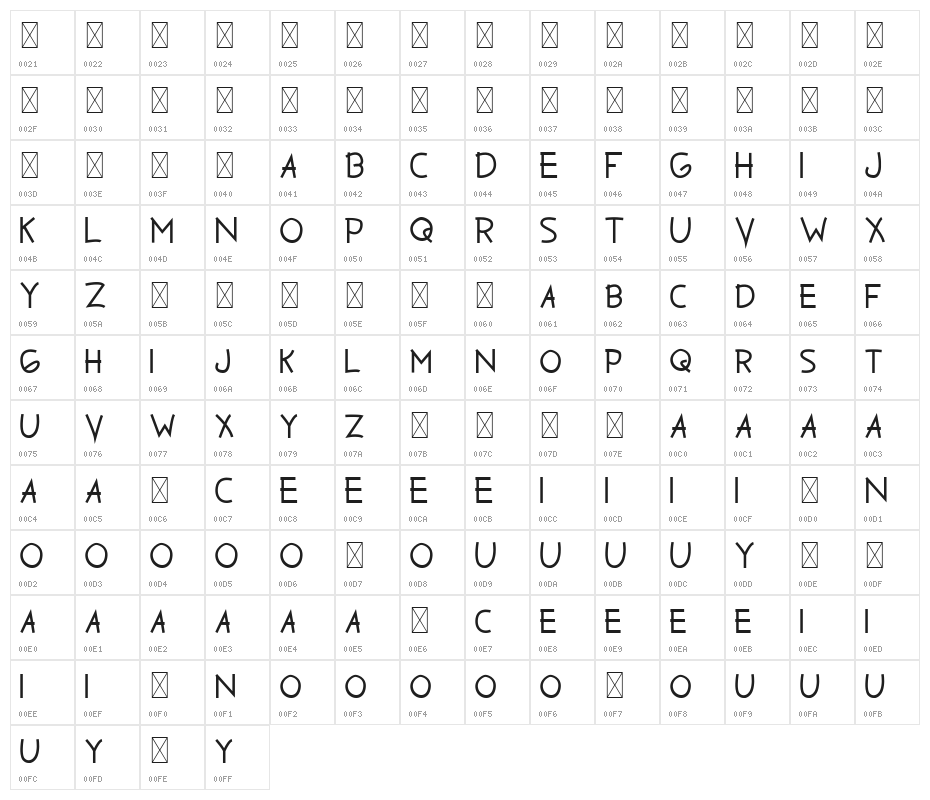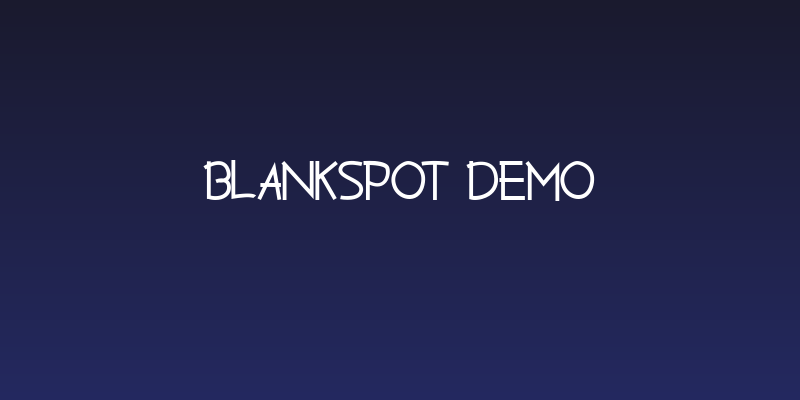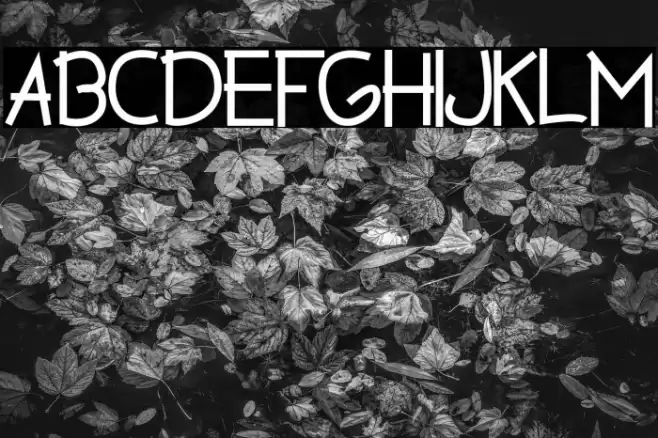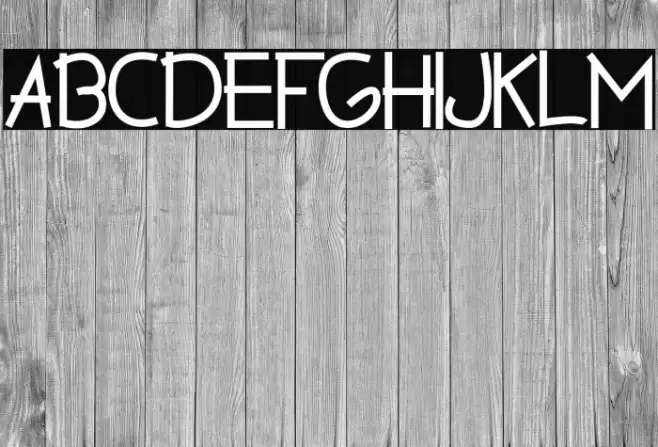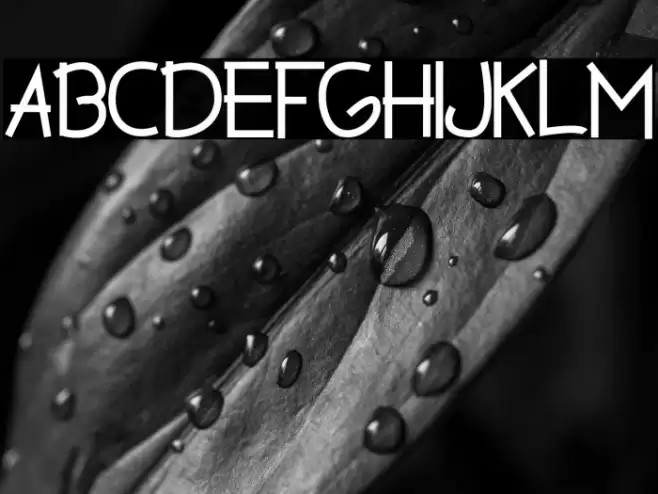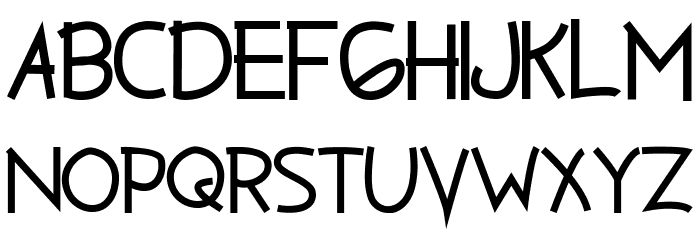
Blankspot Demo Font
| 全体的なスタイル | Modern, Artistic |
| おすすめプロジェクト | Ideal for creative projects such as posters, album covers, and branding materials that require a unique and artistic touch. |